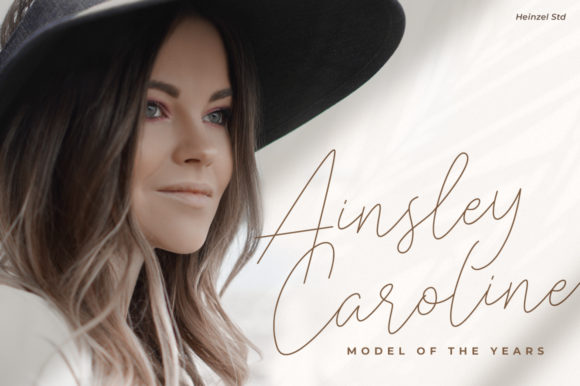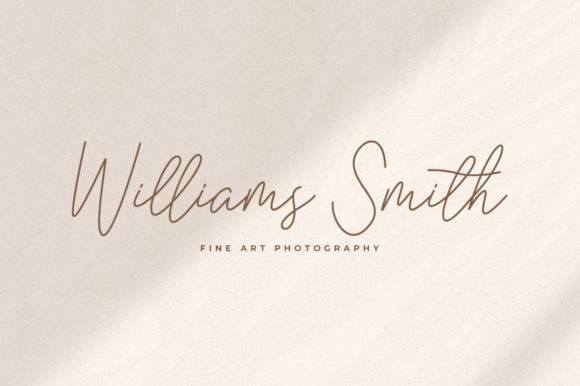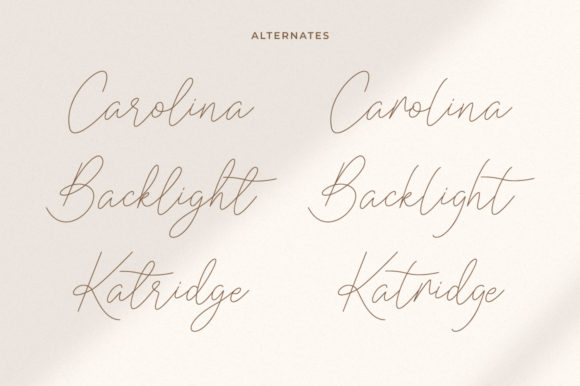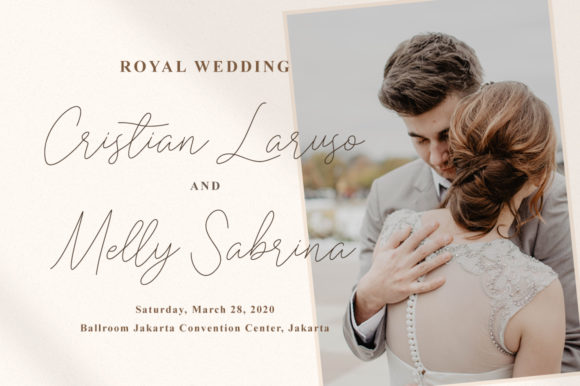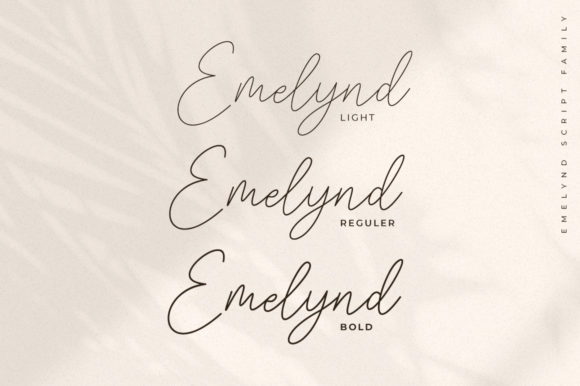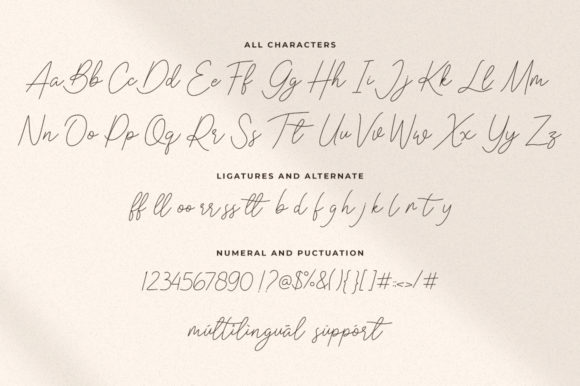
The Elusive Perfect Font: My Encounter with Emelynd
I’ll never forget the frustration of scrolling through font after font, searching for that perfect match for a client’s branding project. The brief was simple: elegant, charming, and with a touch of classic calligraphy. I wanted something that would make the text feel handcrafted, yet sophisticated. That’s when I stumbled upon Emelynd Font, and my design woes disappeared instantly.
A First Impression: What Makes Emelynd Special
Emelynd Font is a stunning handwritten font that effortlessly balances charm and elegance. Its design pays homage to classic calligraphy, boasting a varying baseline, smooth lines, gorgeous glyphs, and stunning alternates. Whether you’re working on a wedding invitation, a branding project, or simply a personal craft, Emelynd feels like the perfect companion.
An Honest Review: The Good and the Quirks
What I Love About Emelynd ✨
- ✅ The elegant, flowing lines that scream sophistication
- ✅ A wide range of glyphs and alternates that offer immense creative flexibility
- ✅ The charming imperfections that make it feel genuinely handcrafted
While Emelynd is exceptionally well-designed, there are a couple of minor considerations to keep in mind:
- ⚠️ The font’s highly stylized nature means it might not be the best choice for very long texts or body content.
- 🤔 Some users might find the learning curve for accessing all the glyphs and alternates a bit steep, especially if they’re new to OpenType features.
The Story Behind Emelynd: Designer Inspiration
Emelynd Font was crafted with the intention of capturing the essence of traditional calligraphy while making it accessible and versatile for modern design needs. The designer sought to create a font that feels both personal and refined, suitable for projects that require a touch of elegance. While the specific details about the designer might be scarce, the love and care put into Emelynd’s creation are evident in its smooth lines, beautiful glyphs, and the overall charm it exudes.
| Font Name | Emelynd Font |
| Author | Heinzel Std |
Q: Is Emelynd suitable for long texts?
A: While Emelynd is beautiful and highly readable, its stylized nature makes it more suited for headings, titles, and short texts rather than long body content.